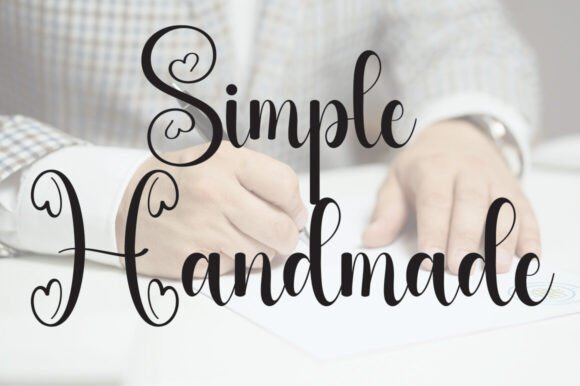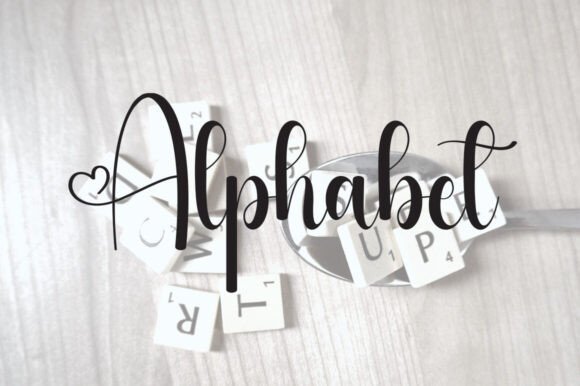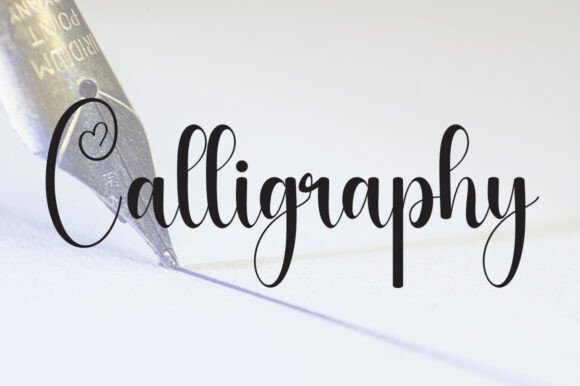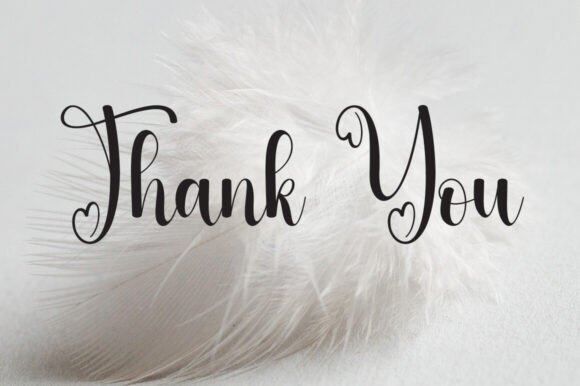
Introducing Boho: The Charming Cursive Font for Designers and Crafters
Are you tired of using the same old fonts in your design projects? Look no further than Boho, a captivating cursive font that brings a touch of elegance and whimsy to any design. With its gentle aesthetic and freehand penmanship-inspired strokes, Boho is the perfect addition to your font collection.
The Charm of Boho
Boho is more than just a font – it’s an experience. Its soft, lyrical strokes evoke a sense of joy and serenity, making it perfect for designers and crafters who want to add a touch of romance and whimsy to their projects. Whether you’re working on a wedding invitation, a branding campaign, or a DIY craft project, Boho is sure to bring a smile to your face and inspire your creativity.
Design Possibilities with Boho
One of the best things about Boho is its versatility. This delightful typeface can be used in a multitude of design concepts, from elegant wedding stationery to playful craft projects. Here are just a few ideas to get you started:
- Wedding Invitations: Add a touch of romance and sophistication to your wedding invitations with Boho. Its gentle curves and flowing strokes make it perfect for formal and informal wedding stationery alike.
- Branding: Use Boho to add a touch of personality to your brand. Its unique charm and character make it perfect for businesses that want to stand out from the crowd.
- Crafting: Boho is a great font for crafters, too! Use it to add a personal touch to your DIY projects, from handmade cards to knitting patterns.
- Signage: Boho’s bold, cursive strokes make it perfect for signage, too. Use it to create eye-catching signs for your business or home.
What Makes Boho Special?
So what sets Boho apart from other fonts? Here are just a few things that make it special:
- Freehand Penmanship: Boho’s strokes are inspired by freehand penmanship, giving it a unique, human touch that’s hard to find in digital fonts.
- Gentle Aesthetic: Boho’s gentle curves and soft strokes make it perfect for designs that require a touch of elegance and sophistication.
- Romantic Whimsy: Boho has a playful, romantic quality that’s perfect for designers and crafters who want to add a touch of whimsy to their projects.
How to Use Boho in Your Designs
- Pair it with Other Fonts: Boho pairs well with a variety of other fonts, from bold sans serifs to elegant scripts. Experiment with different pairings to find the one that works best for your project.
- Use it in Headlines: Boho’s bold, cursive strokes make it perfect for headlines and titles. Use it to add a touch of drama and flair to your designs.
- Experiment with Colors: Boho looks great in a variety of colors, from soft pastels to rich jewel tones. Experiment with different colors to find the one that works best for your project.